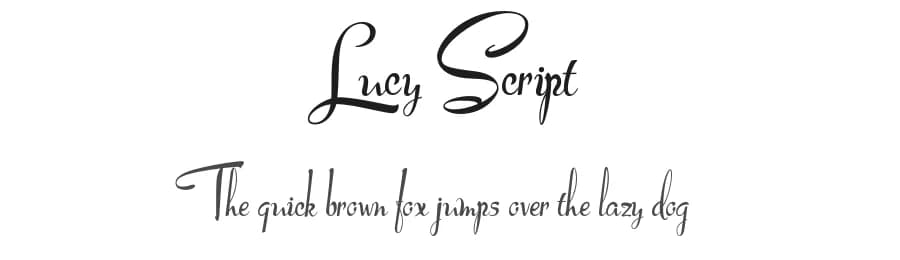
About Lucy Script Font
Capital letters originally named "Individual Capitals" traced from: The ABC of Lettering by J.I. Biegeleisen. Harper & Row Publishers NY 1965. ISDN 65-14683. Now, under a new name, I designed the lowercases, numbers and punctuations inpired in different sources.
| Designer | Mario Arturo |
Lucy Script Font is a script font that shines as a display or heading face. Pair it with a clean sans-serif or serif font for body text β the contrast creates a clear hierarchy while the two styles stay balanced and easy to read.
Lucy Script Font
by Mario Arturo